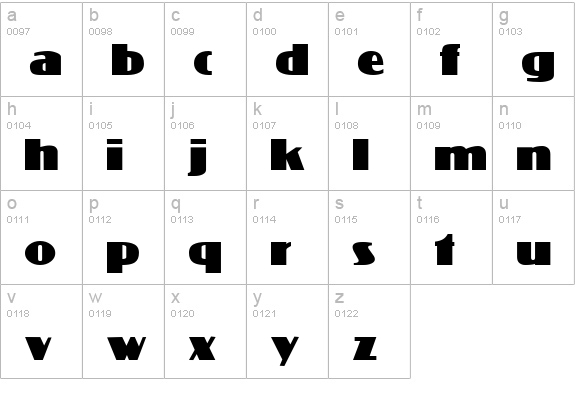
Coliseo Regular is the standard, neutral variant in the Coliseo typeface family \xE2\x80\x94 well suited to general body text, paragraphs, and standard typographic work.
Coliseo Regular font is a timeless and elegant typeface that exudes classic sophistication. With its clean lines and balanced proportions, this versatile font is perfect for a wide range of design projects. Whether you're creating a vintage-inspired logo, designing a stylish invitation, or crafting a professional document, Coliseo Regular font will add a touch of refinement to your work. The best part? Coliseo Regular font is available for free download at FontsMarket.com. Simply visit the website to access this beautiful typeface and enhance your designs with its timeless charm. Download Coliseo Regular font today and elevate your projects with its effortless elegance.